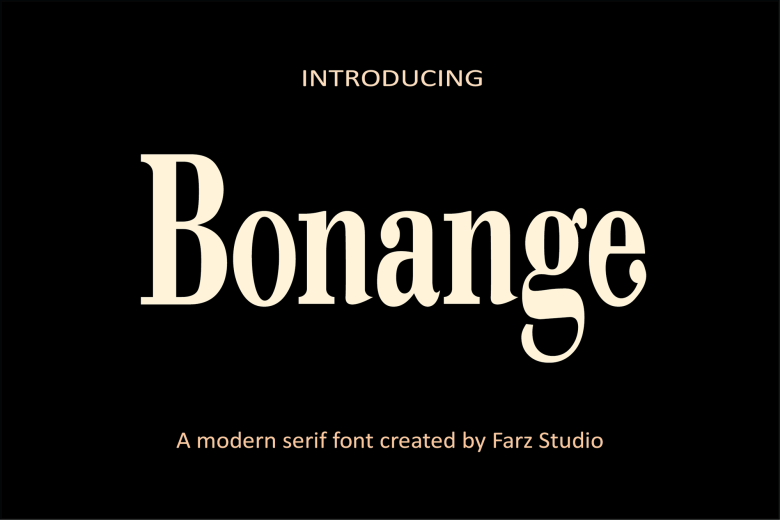
Bonange Font
Bonange Basic Serif Font is a bold and elegant serif font. This font is equipped with uppercase, lowercase, numbers, punctuation, and several variations on each character including multi-language. Fall in love with its incredibly versatile style and use it to create spectacular designs!